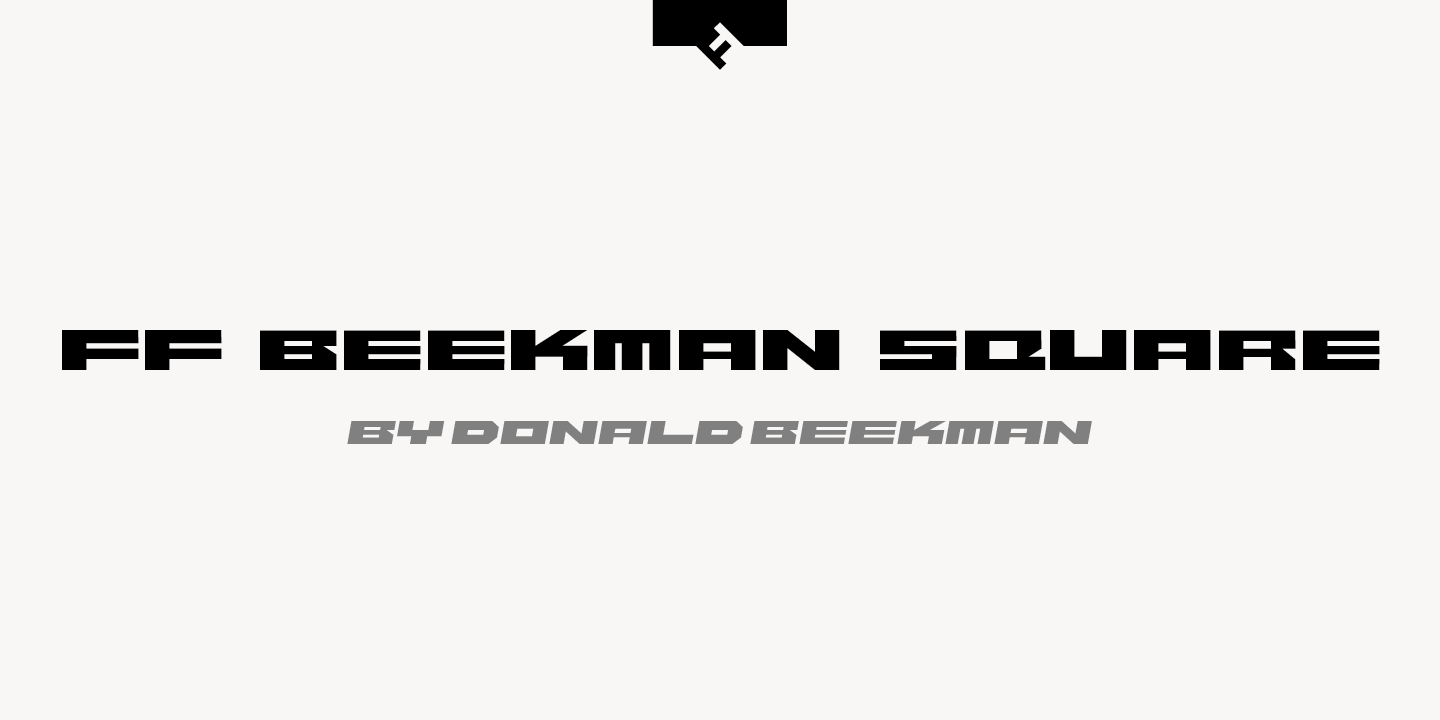
FF Beekman Square Font is ideal for urban design projects, metropolitan branding, architectural signage, contemporary city guides, modern transportation systems, urban planning documents, street art exhibitions, cosmopolitan lifestyle magazines, downtown business districts, and progressive municipal communications.
What makes FF Beekman Square Font exciting is its perfect capture of bustling urban energy and sophisticated metropolitan character that brings the rhythm of city life to every design project. This dynamic typeface embodies the spirit of urban squares where diverse cultures intersect, featuring geometric precision balanced with human warmth that reflects the complexity and vibrancy of modern city living. The font's metropolitan character creates immediate connection to urban sophistication and cultural diversity.
FF Beekman Square Font family includes multiple weights with distinctive geometric construction featuring squared terminals and urban-inspired proportions. The typeface maintains excellent readability while showcasing its unique city-influenced personality through carefully crafted letterforms that echo the architectural rhythm of metropolitan environments.
Urban planners and designers select FF Beekman Square Font Free Download for projects requiring authentic metropolitan appeal and contemporary urban sophistication. This remarkable typeface brings the energy of city squares to brand communications, combining architectural precision with cultural diversity to create memorable urban experiences. The thoughtfully designed characters ensure versatile performance across all applications, making it essential for municipal governments, urban development companies, and any organization seeking to communicate the dynamic spirit and endless possibilities found in thriving metropolitan communities where innovation and tradition meet.